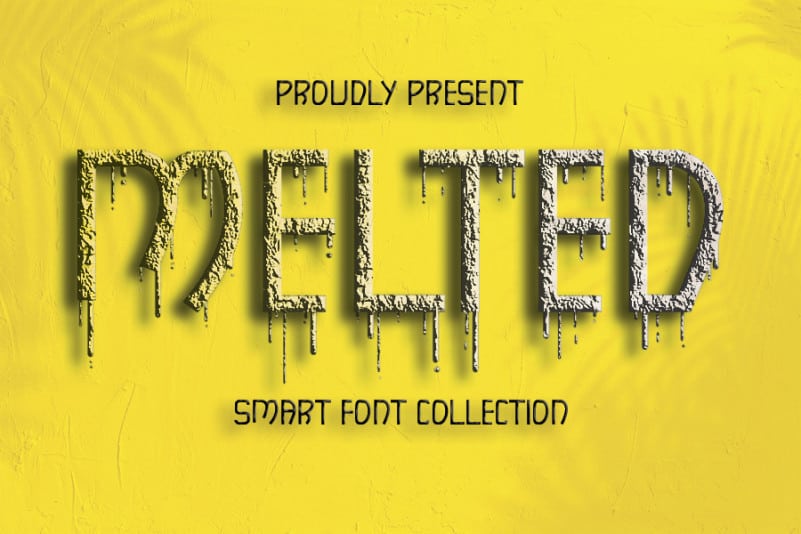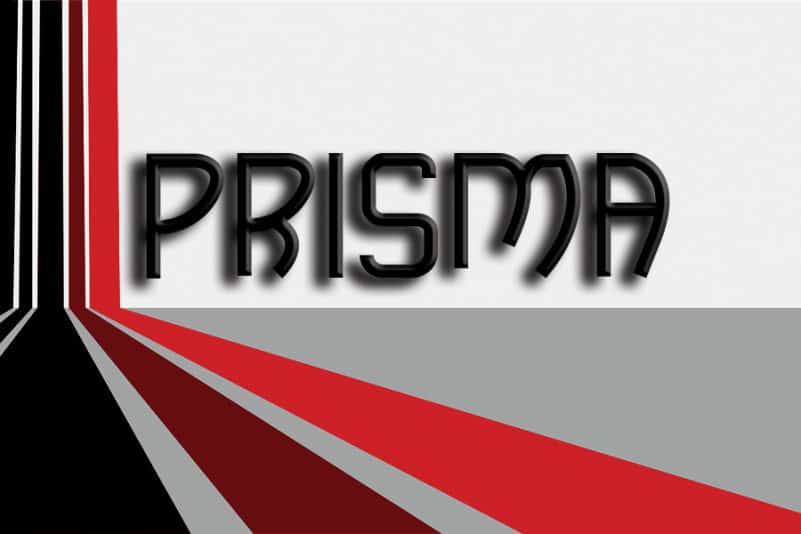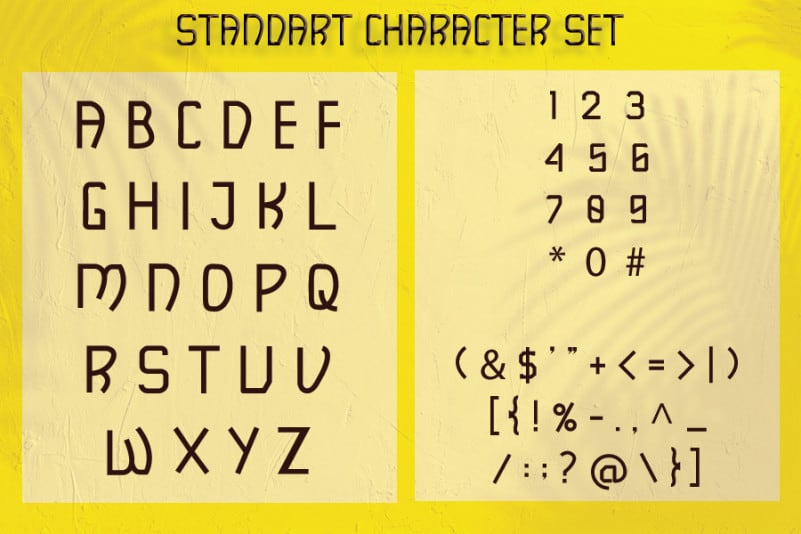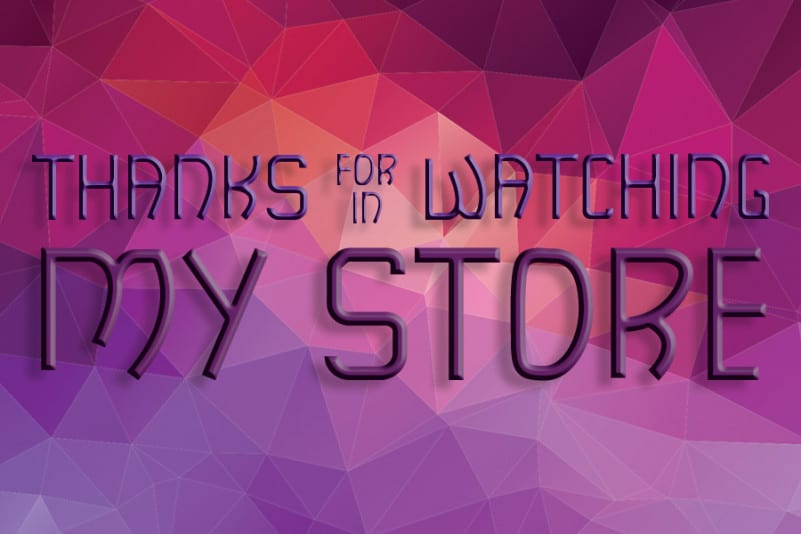
Chocolatte Display Font
Chocolatte Display Font is a cool, interesting and modern display font. Expertly designed to make your creation look out of this world, this font has the potential to take your creative ideas far further.
Erik Studio